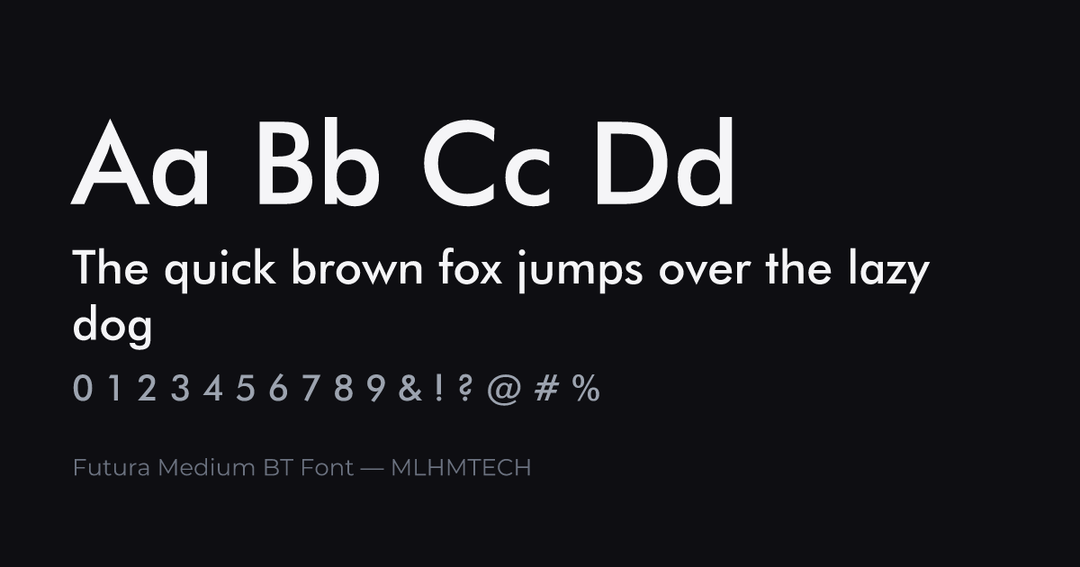
Futura Medium BT Font
Futura Medium BT is a timeless geometric sans-serif font, ideal for clean, modern designs. Perfect for logos, headings, and branding projects.
Futura Medium BT is a classic geometric sans-serif typeface, known for its clean, modern, and timeless appearance. Its balanced proportions and sharp, circular shapes make it a versatile choice for a wide range of design projects.\n\nThis font is particularly well-suited for headlines, logos, posters, and branding materials where a strong, confident, and contemporary look is desired. It pairs well with both serif and sans-serif fonts, offering flexibility in your design compositions.\n\nThe file is provided in TTF format, ensuring compatibility with most design software, including Adobe Creative Suite, Figma, Sketch, and more. Install it on your system to start using it immediately in your projects.